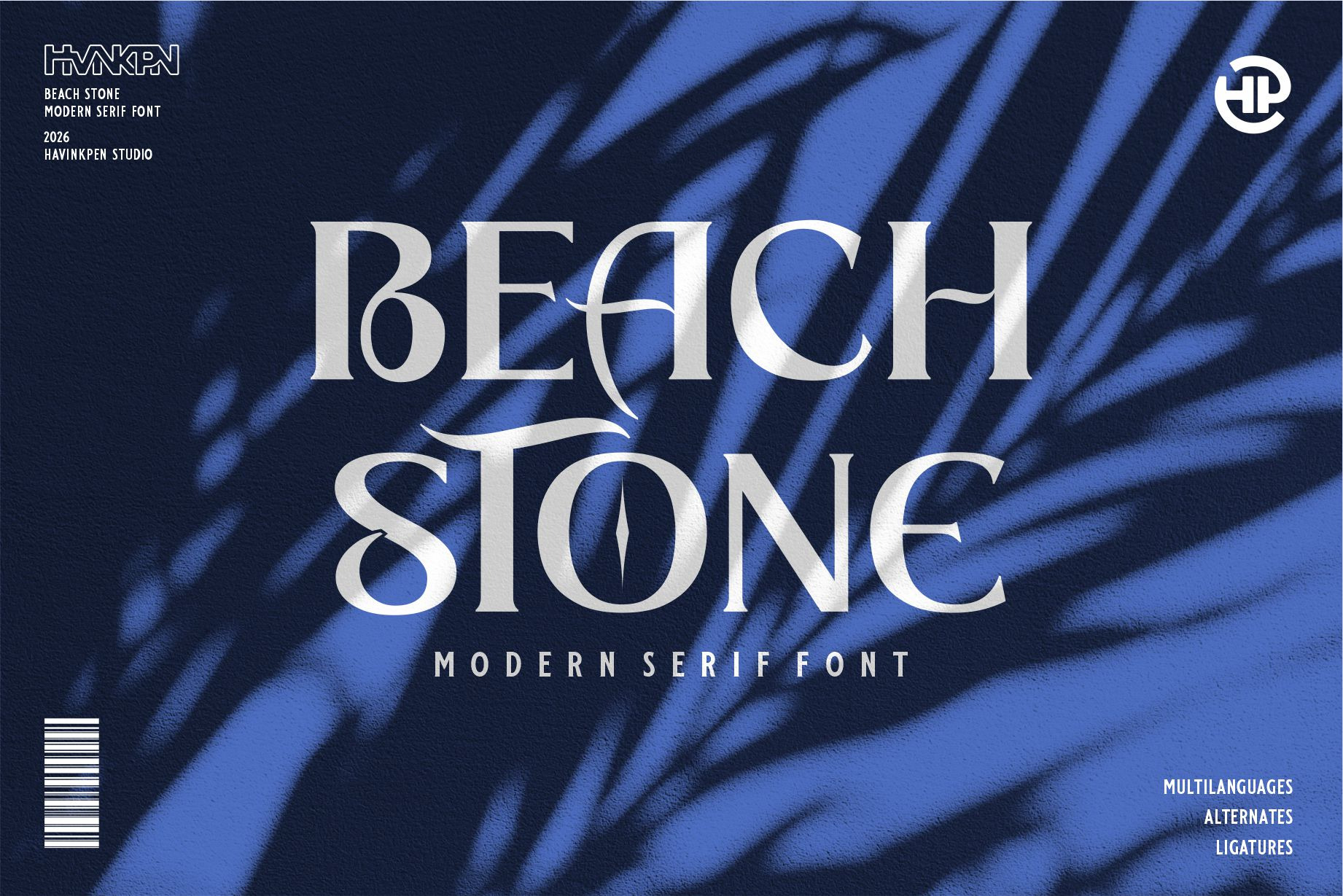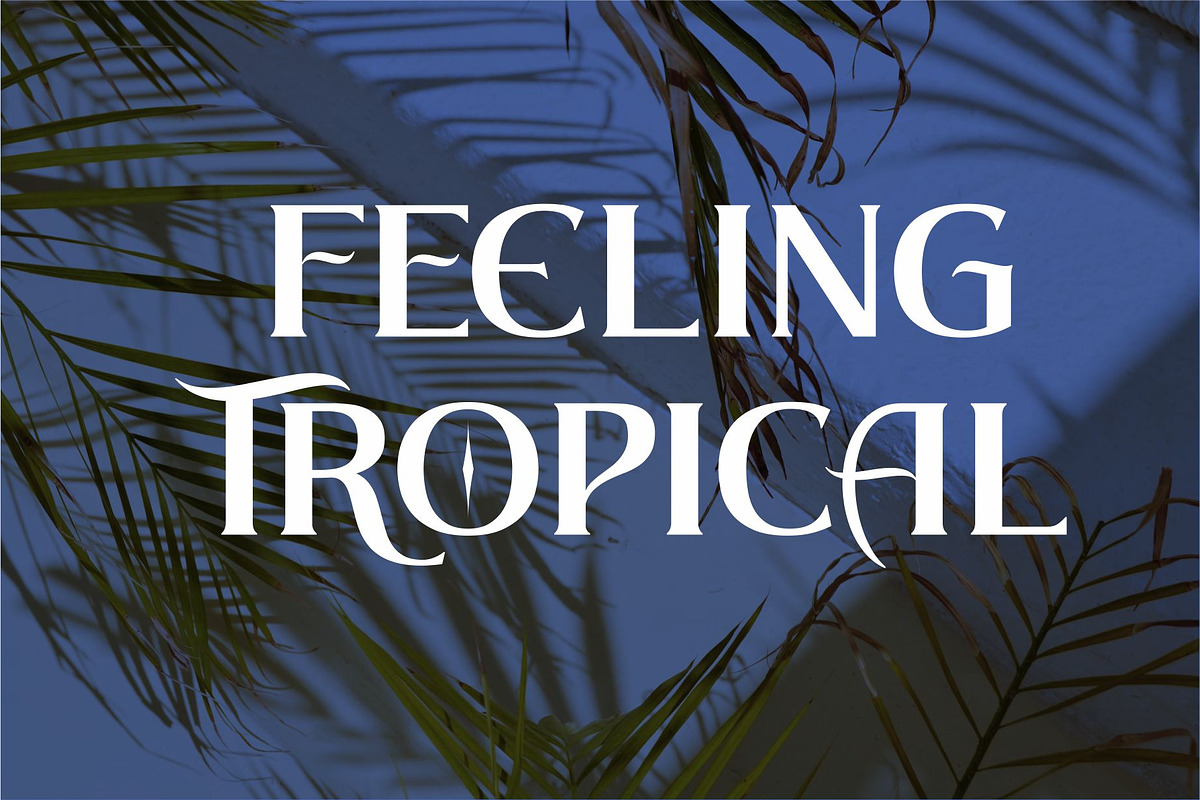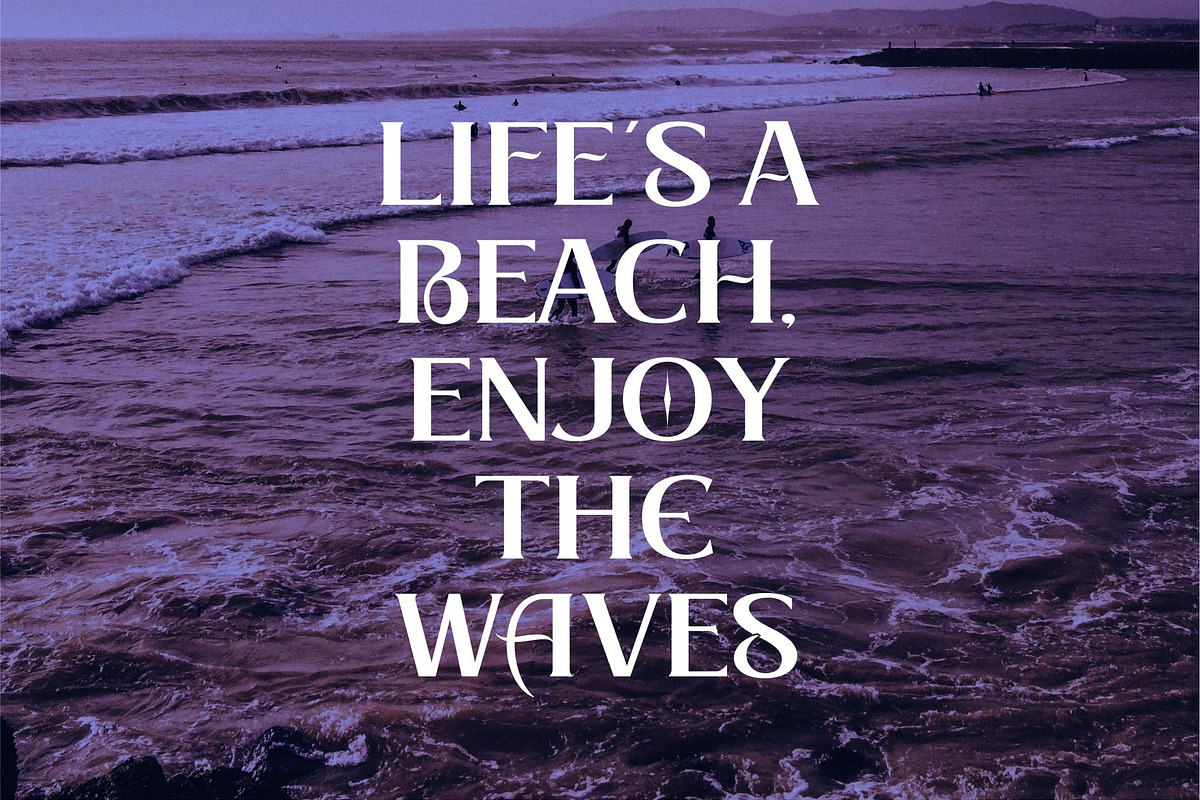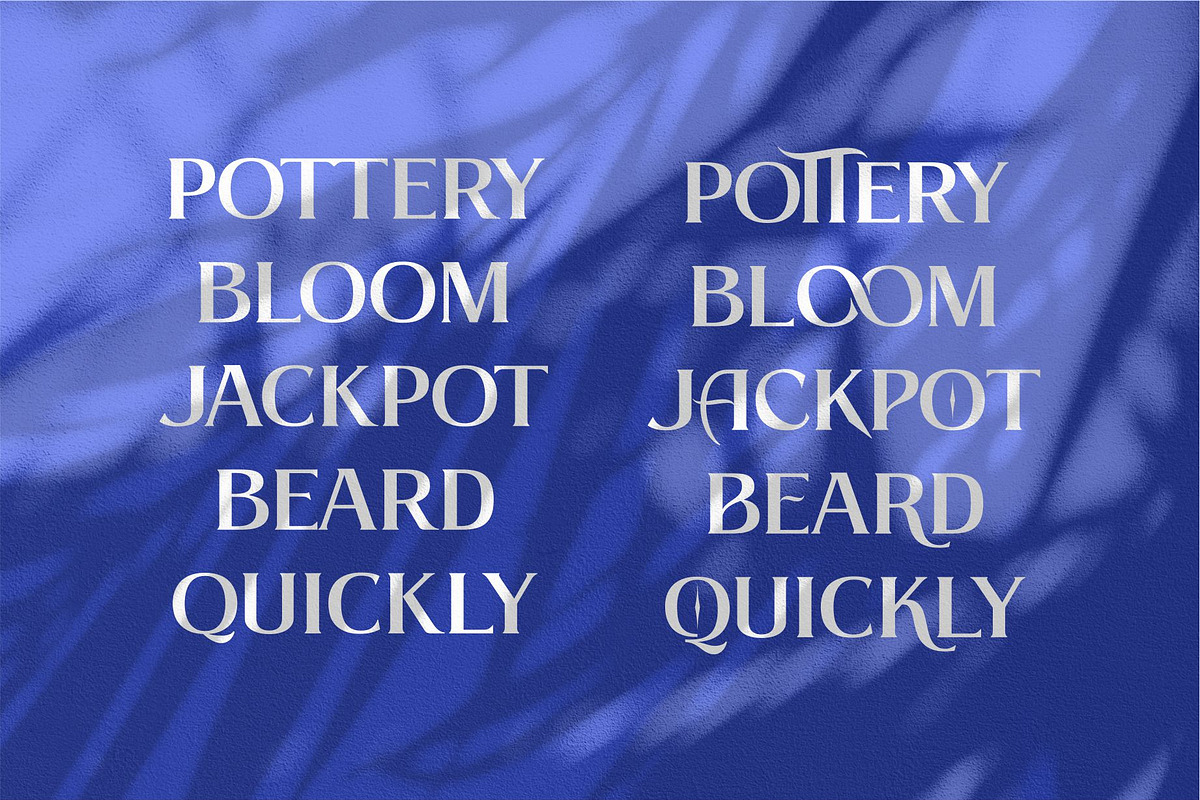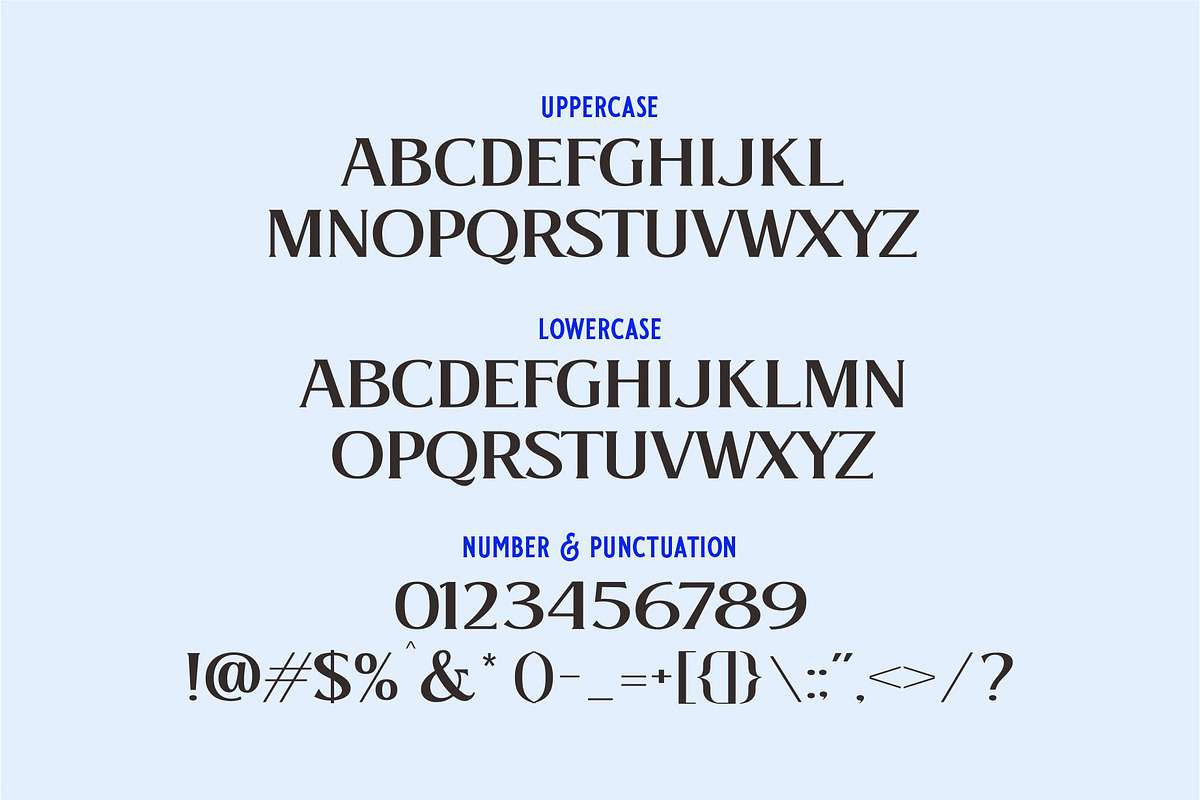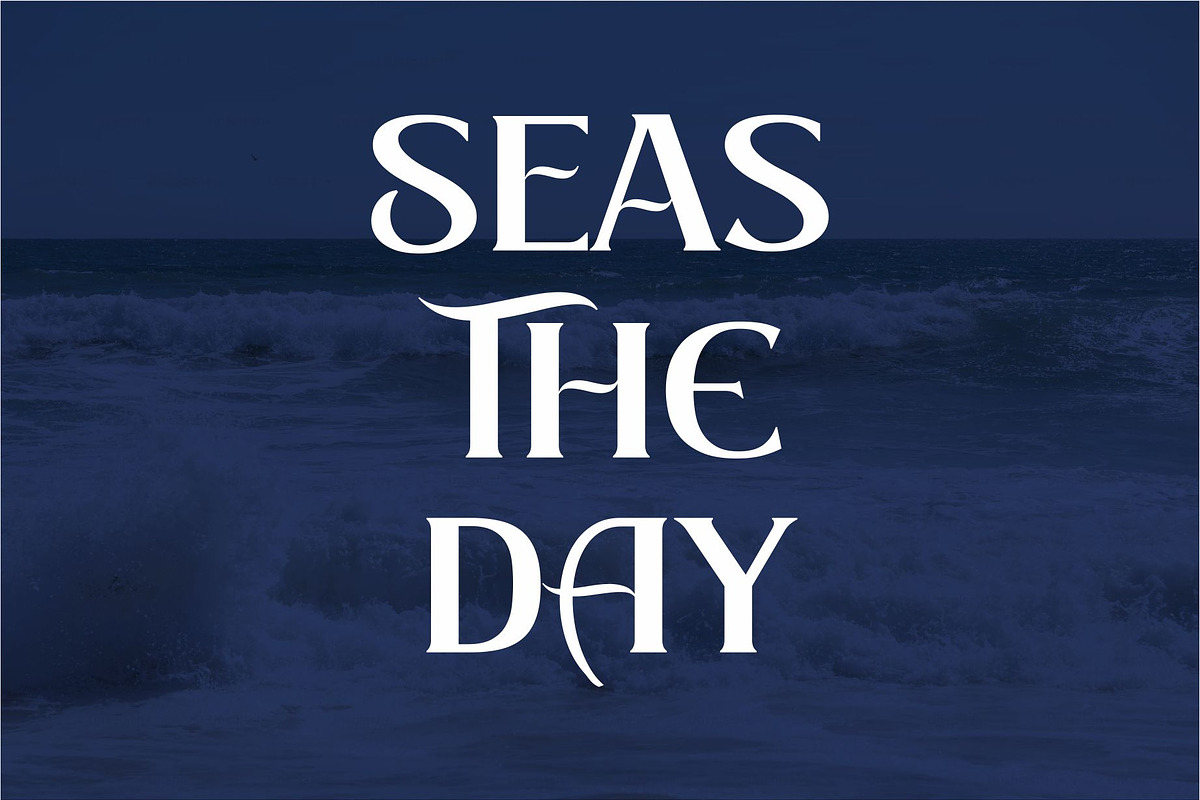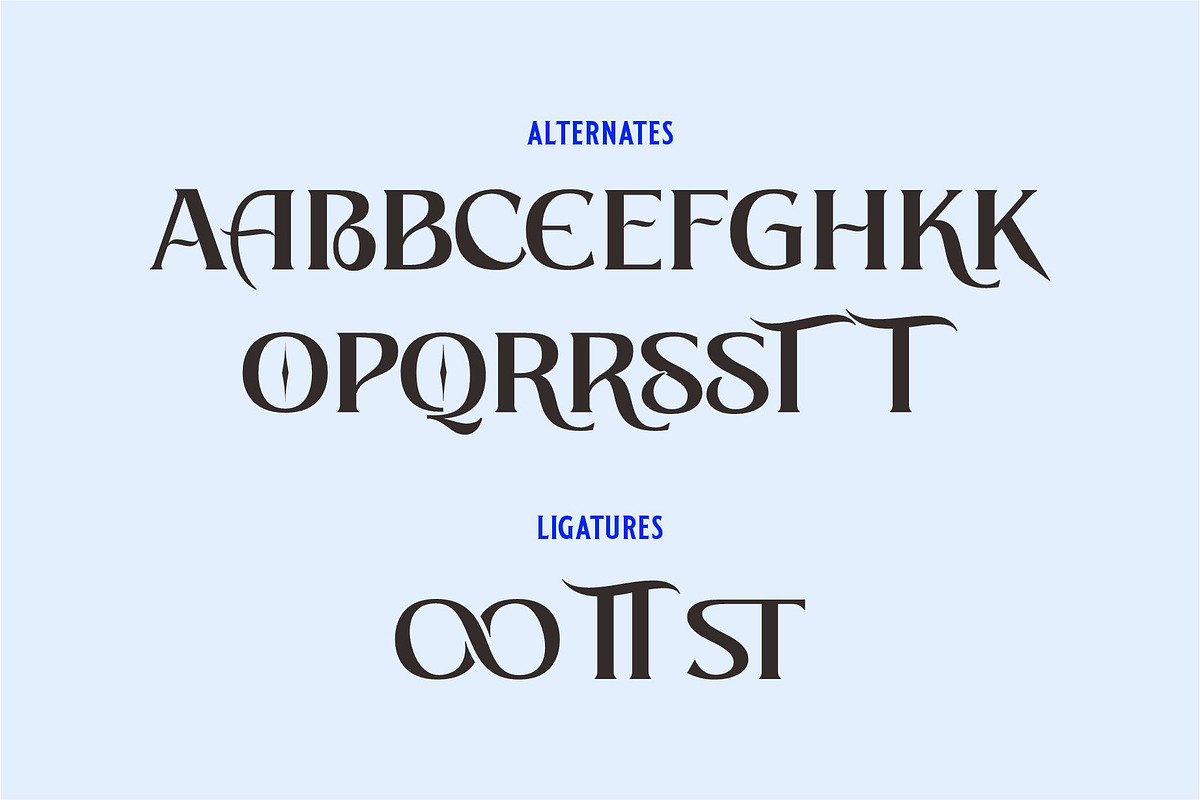
BEACH STONE | Modern Serif Font
Beach Stone is a modern serif font that blends elegance with a natural, coastal character. Designed with refined curves, andsharp serifs, this typeface delivers a timeless yet contemporary feel—perfect for high-end branding and editorial designs. Inspired by the calm strength of stone and the fluid movement of the sea, Beach Stone offers a luxurious aesthetic with artistic details that make every word stand out. Each letterform is carefully crafted to create a bold visual impact while maintaining readability and balance.
- Branding & logo design
- Editorial layouts & magazines
- Fashion, beauty, and luxury brands
- Posters, covers, and headlines
- Social media graphics & web design
- Stylistic Alternates & Ligatures